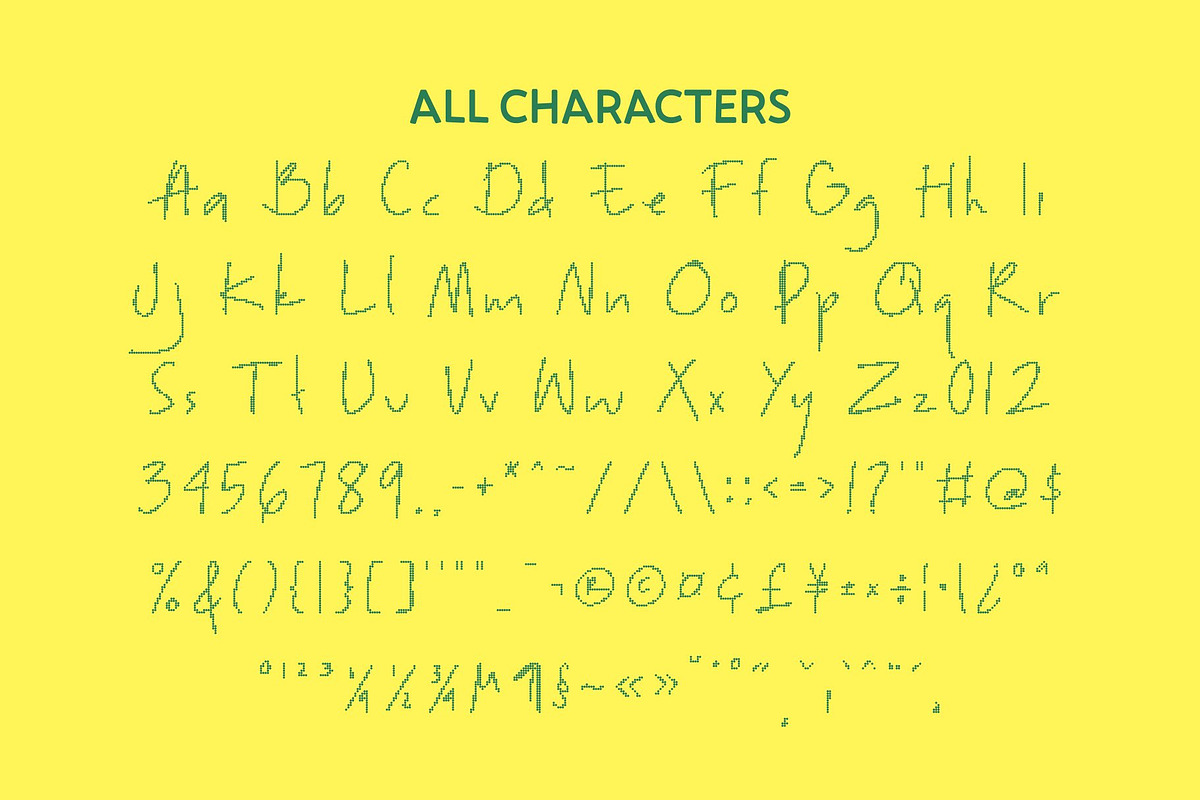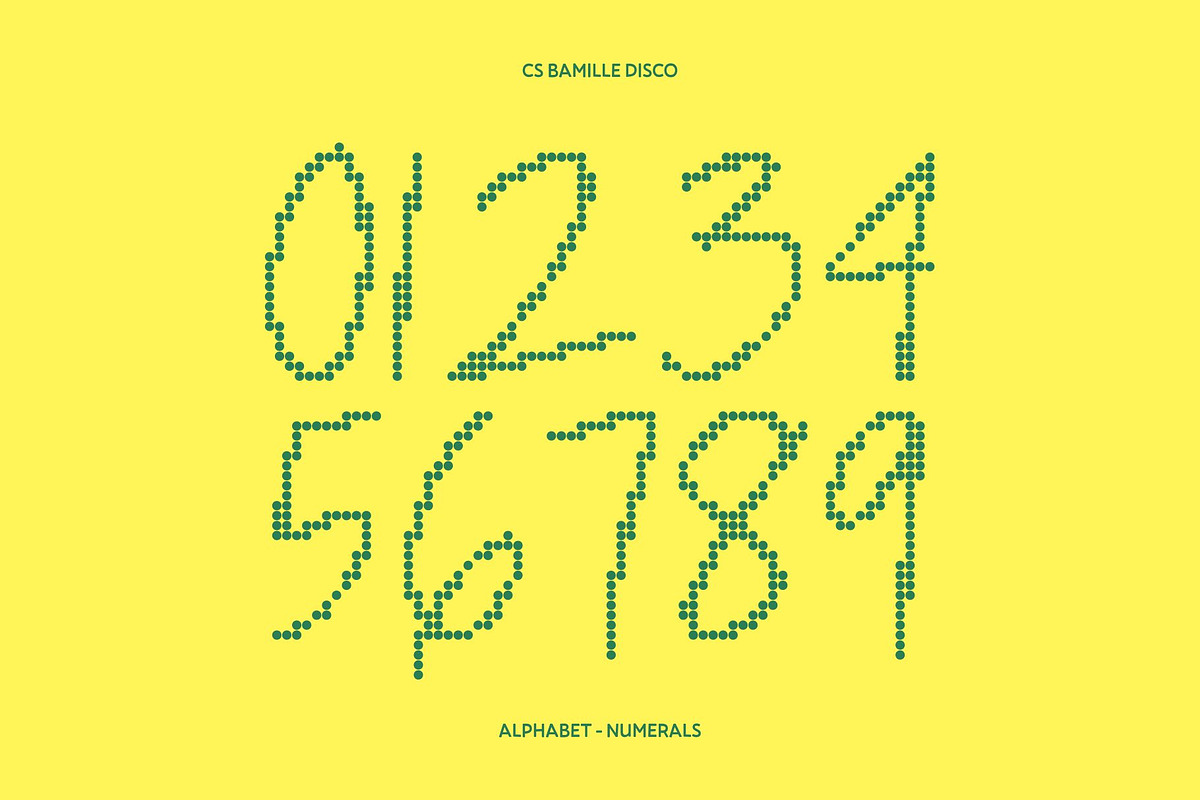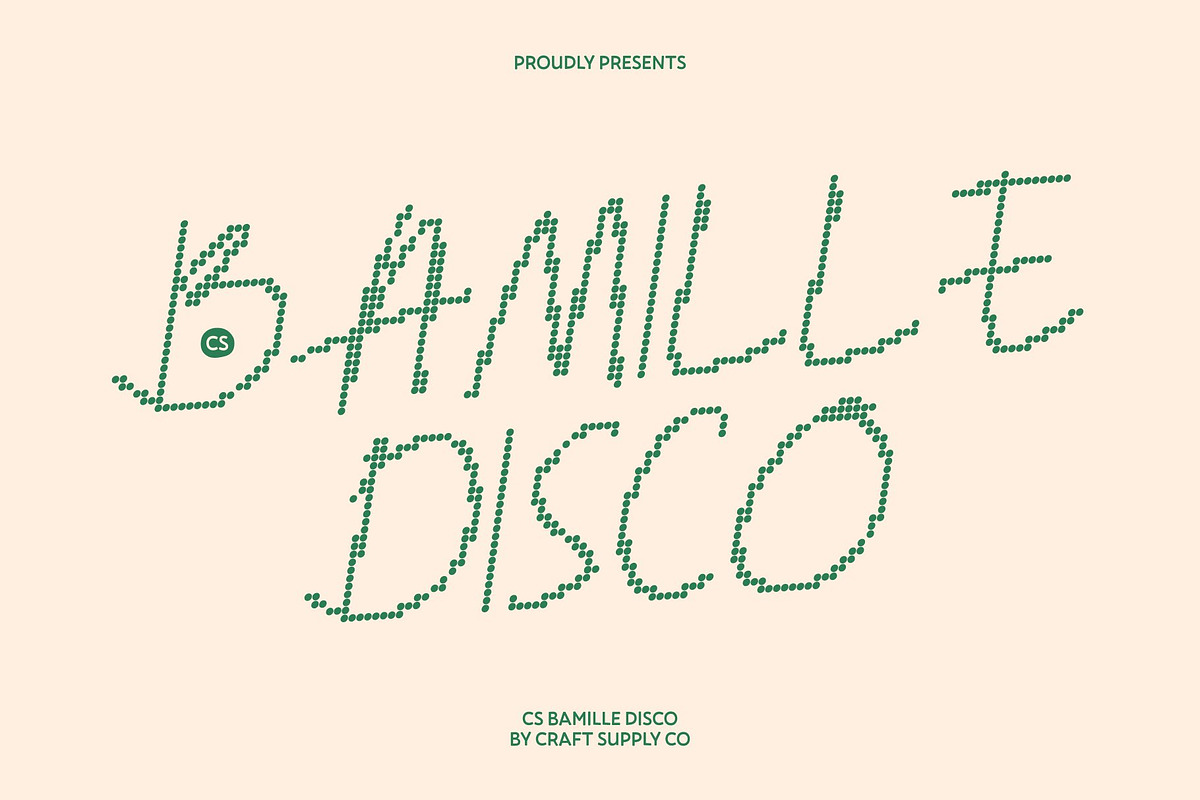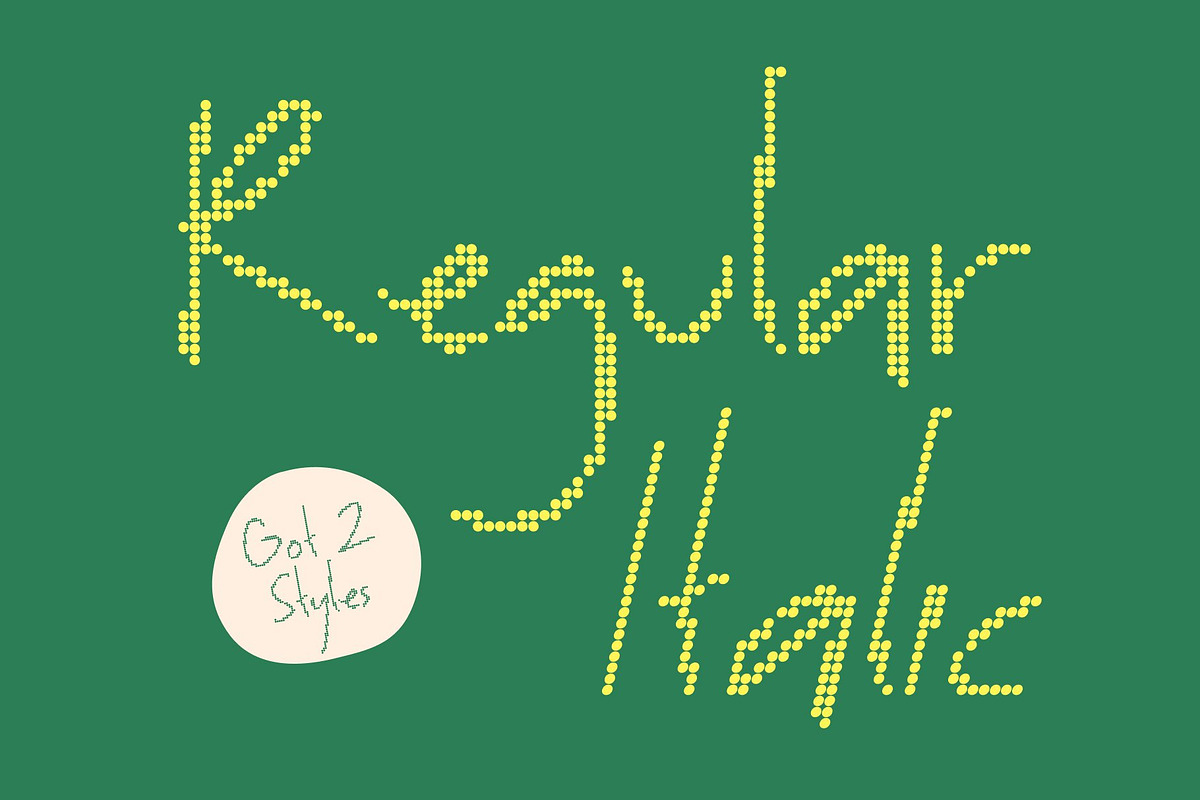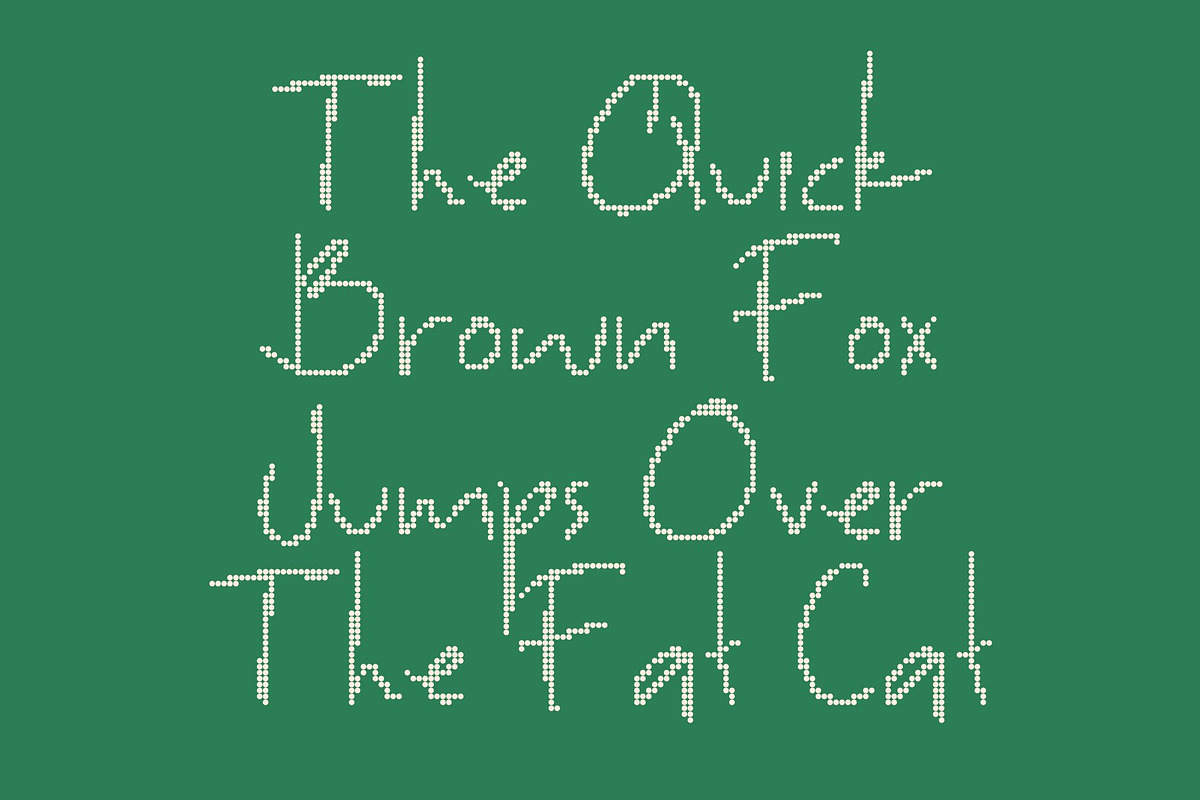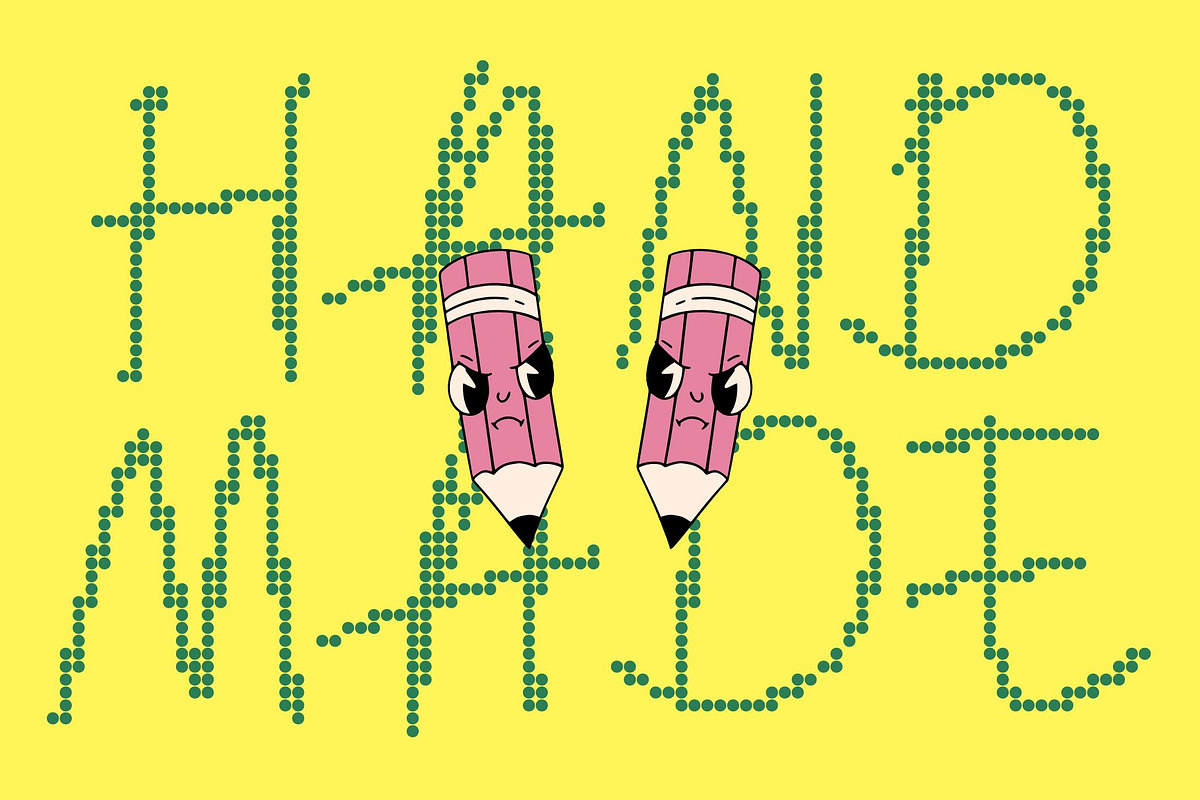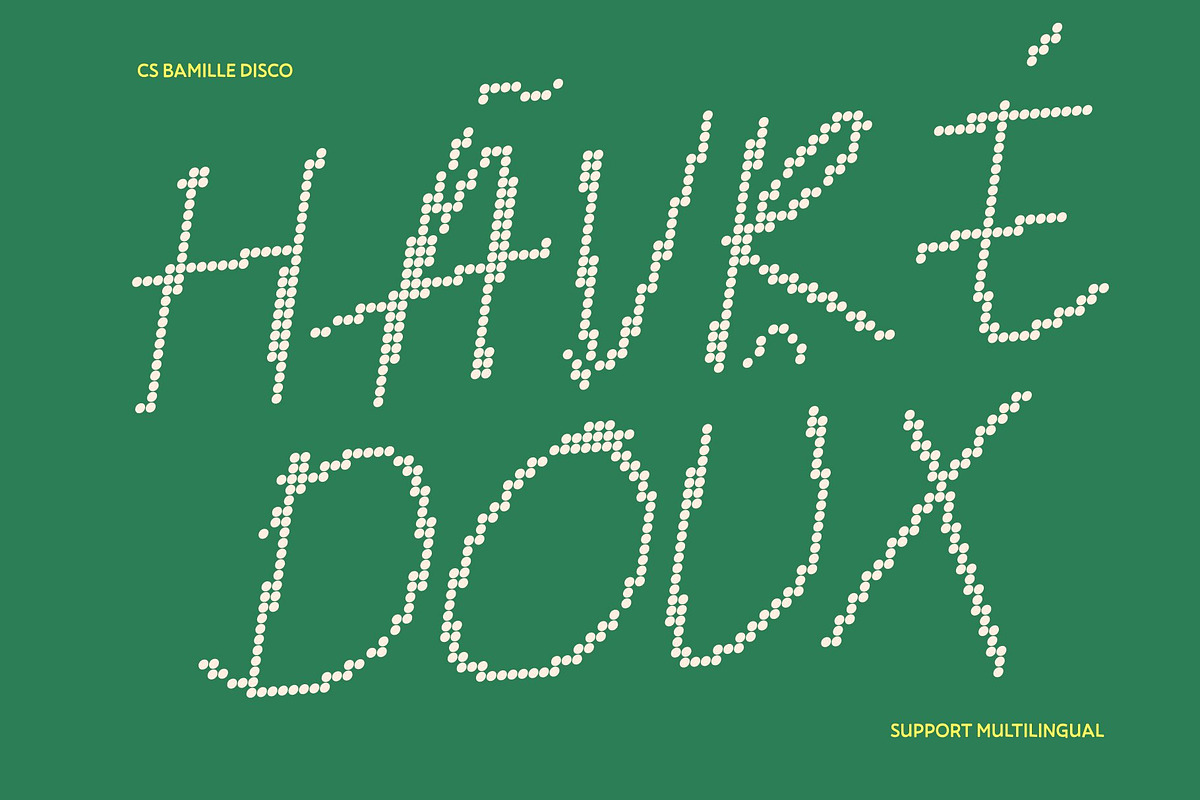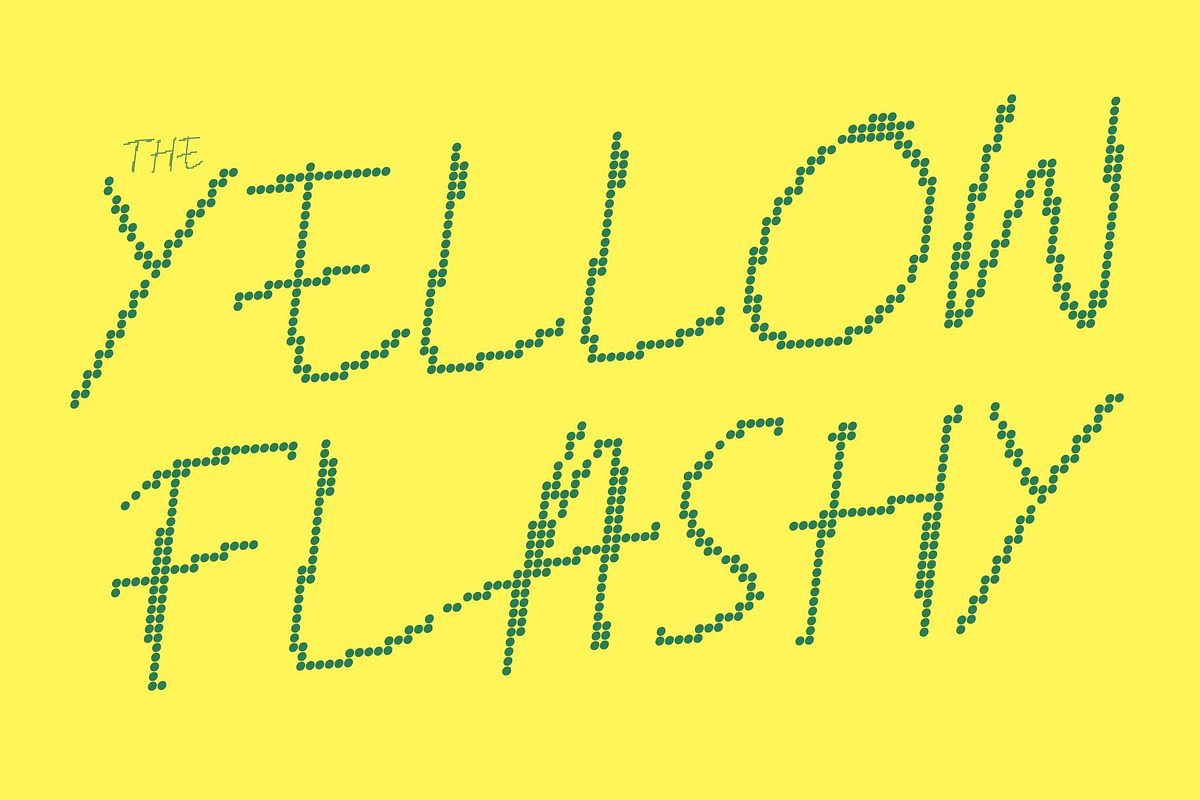
CS Bamille Disco
CS Bamille Disco – Warm Authenticity with Expressive Handwriting Energy
Soft, Expressive Style with a Lively Touch This is a handwriting font designed to capture the natural beauty of flowing pen strokes, enhanced with a subtle disco-inspired liveliness. Its fluid and organic forms create softness and authenticity, while a gentle rhythmic movement gives the letters an uplifting, cheerful presence. The result is a font that feels warm, personal, and effortlessly expressive.
Natural Curves with Genuine Personality Every handwritten sans serif character carries warmth and sincerity. The curves feel smooth and unforced, allowing the text to communicate honesty and approachability. This natural construction adds emotional depth and human connection, making designs feel intimate, friendly, and relatable.
Perfect for Personal Branding and Inspirational Quotes This font shines in personal branding projects where individuality and authenticity matter. It beautifully enhances inspirational quotes, social media graphics, lifestyle visuals, and creative storytelling ensuring messages feel heartfelt, stylish, and full of positive energy.
Versatile for Invitations and Casual Creative Designs From casual invitations and greeting cards to packaging and digital layouts, this font adapts seamlessly across print and screen. Its friendly handwritten character combined with subtle rhythmic charm ensures a consistently warm and stylish appearance in any creative context.